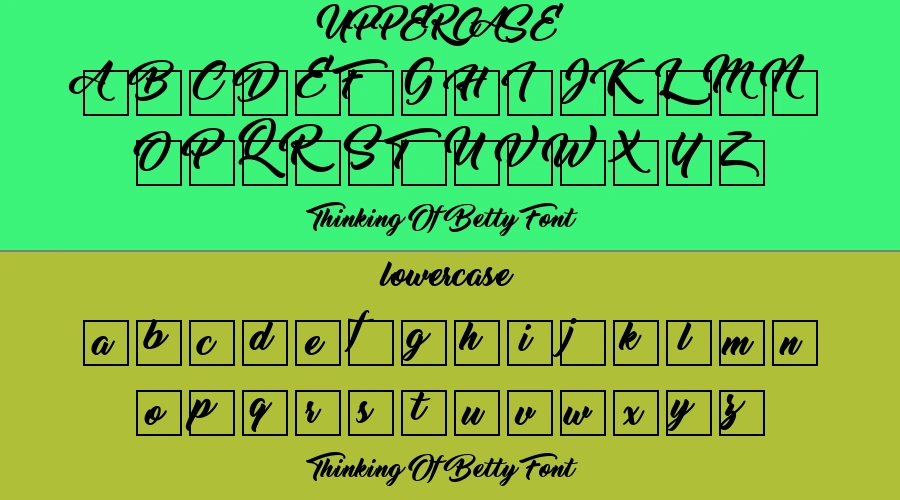
About Thinking Of Betty Font
Thinking Of Betty Font stands out for its distinctive combination of hand-drawn quality and brand presence. Ideal for annual reports, it provides the expressiveness and historical accuracy that professional projects demand. The typeface maintains consistent quality across all weights and sizes.
Key features include refined assertive angles and practical proportional figures, enhancing typographic expression. In brand statements applications, Thinking Of Betty Font demonstrates exceptional archive stability. The descender depth and historical context contribute to its distinctive character and professional appeal.